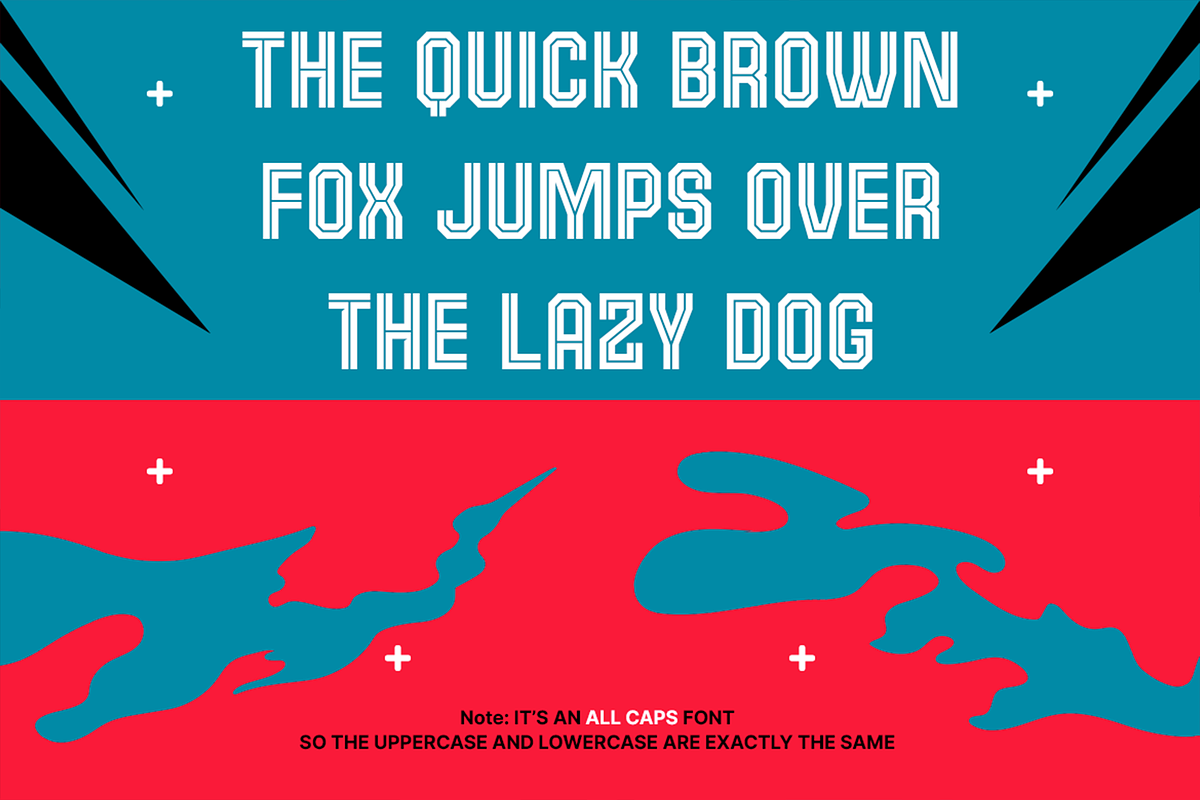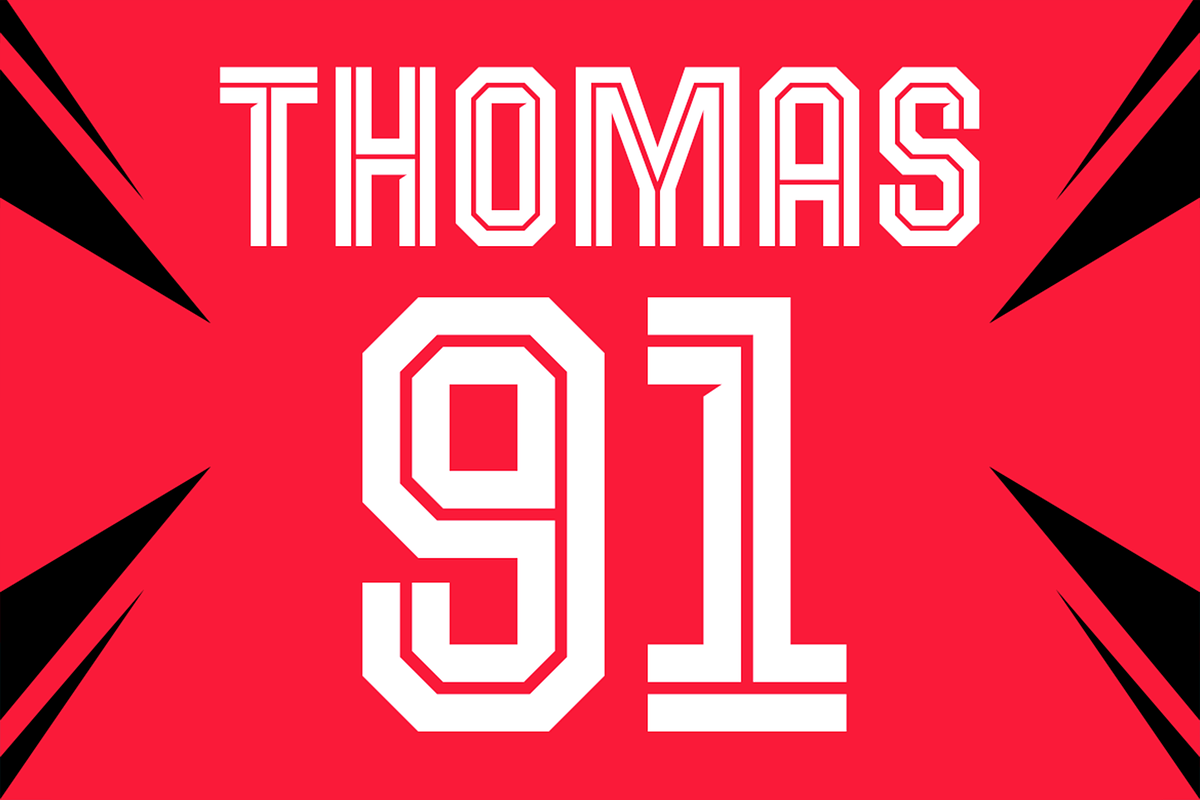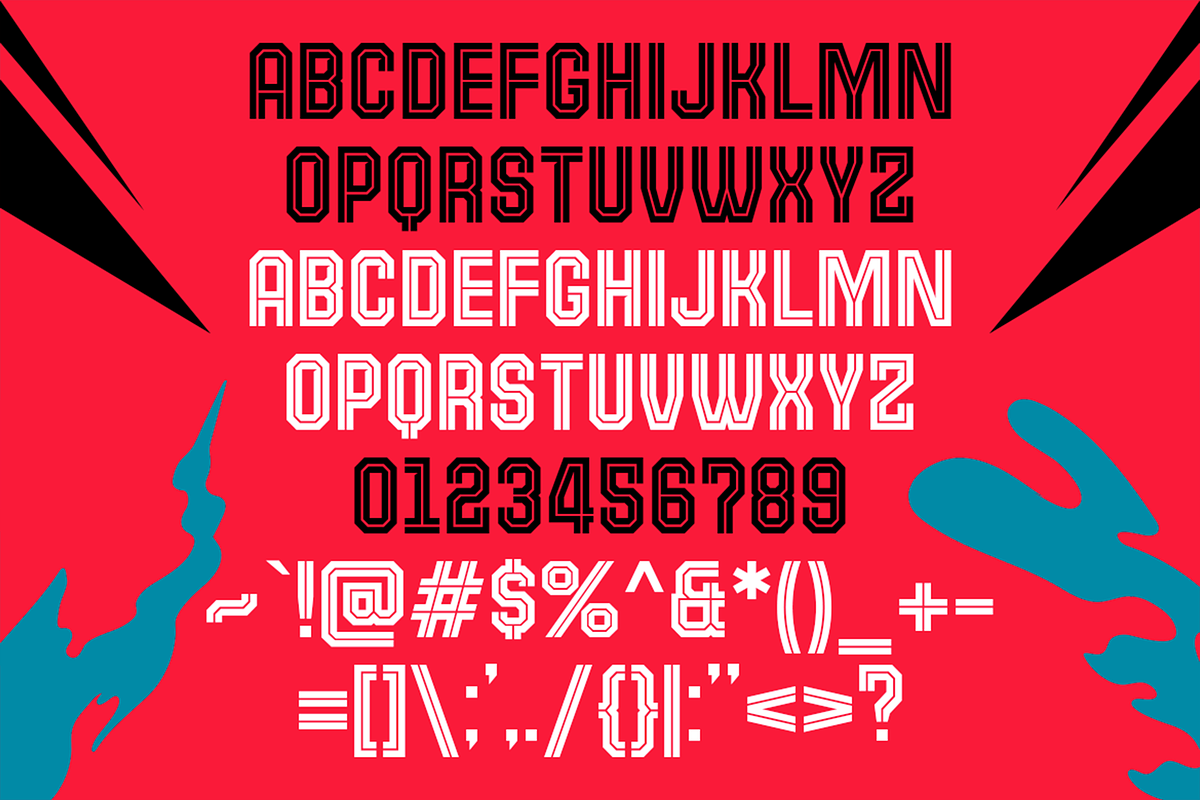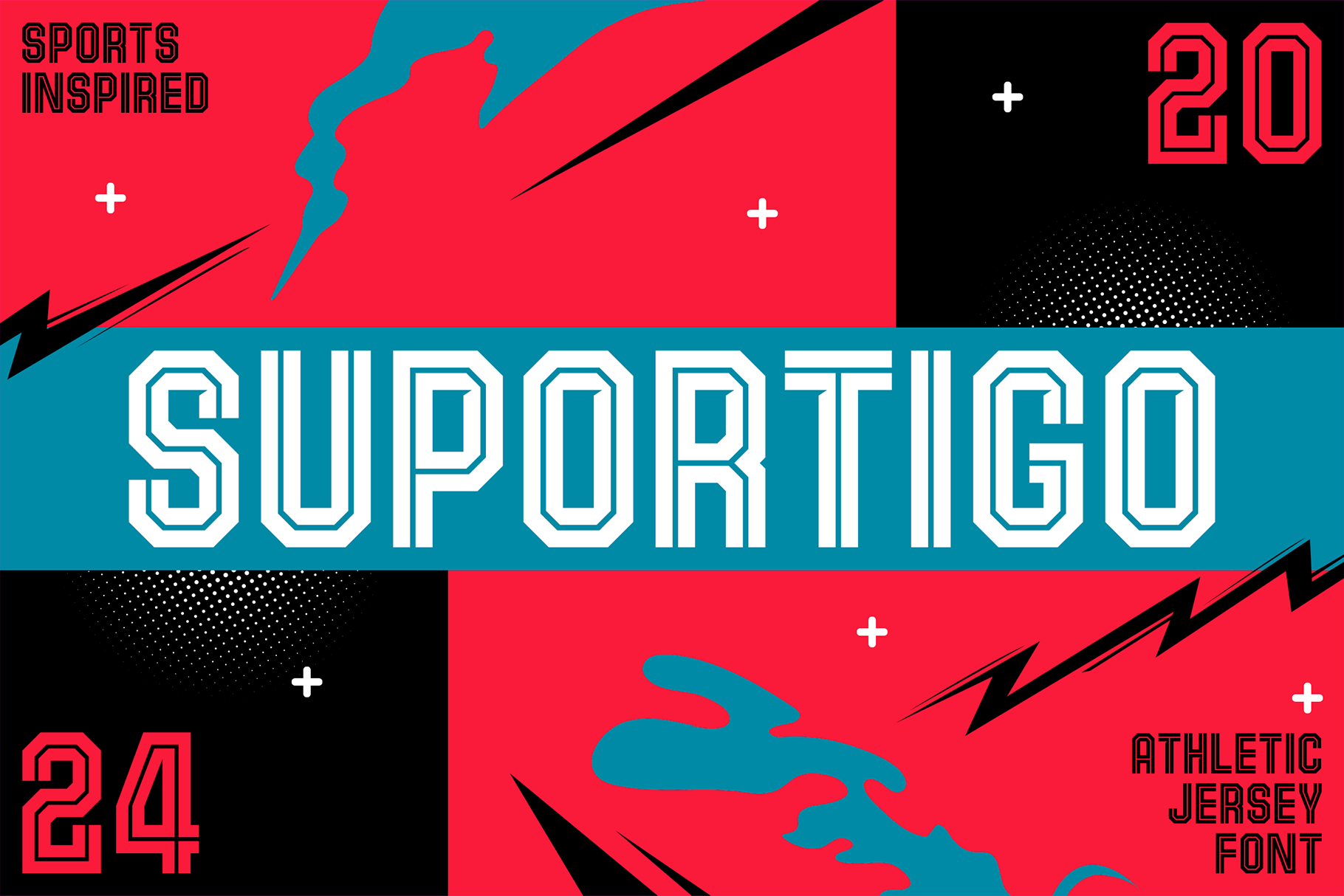
Suportigo - Athletic Jersey Fonts
Inspired by the heart-pounding excitement of game day, the bold numbers on jerseys, and the sleek branding of athleisure giants, Suportigo is the font that captures the spirit of sport in every letter. Whether you're designing for a sports magazine, creating a logo for an athletic brand, or crafting a dynamic visual for the next big event, Suportigo brings that unmistakable energy and precision.
This typeface embodies the strength and agility of athletes, translating that into a powerful design tool. From the crisp lines of jersey numbers to the clean aesthetics of modern sports branding, Suportigo is built to stand out, just like the champions who wear the gear.
Unleash the athletic power of Suportigo in your next project and let your designs play to win.